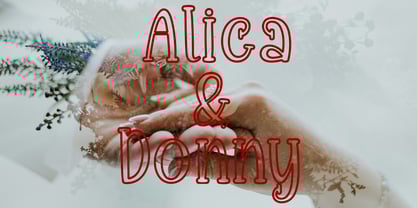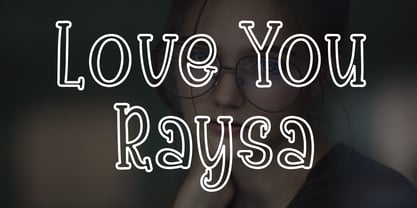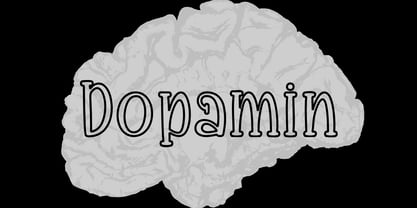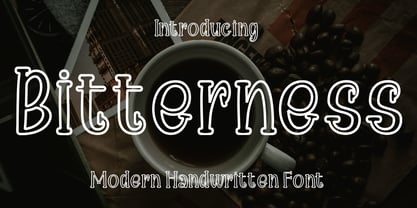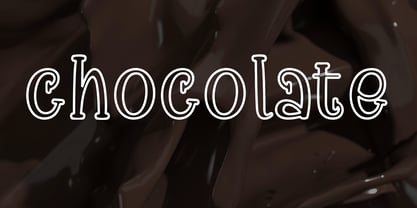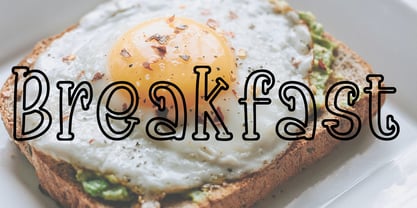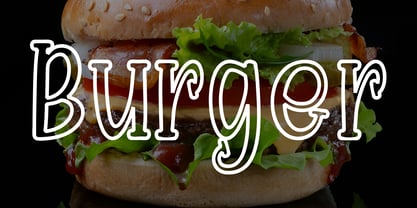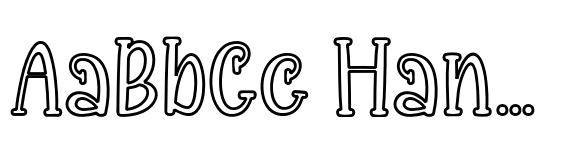
Bitterness
by Shape Studio
The Bitterness Font Family was designed by Teuku Saifullah and published by Shape Studio. Bitterness contains 1 styles.
Bitterness your favorite projects. Fall in love with its completely different and timeless style and can use it to create wall designs, logos, wedding invitations, stationery, product labels, photography and much more.
Designers: Teuku Saifullah
Publisher: Shape Studio
Foundry: Shape Studio
Design Owner: Shape Studio